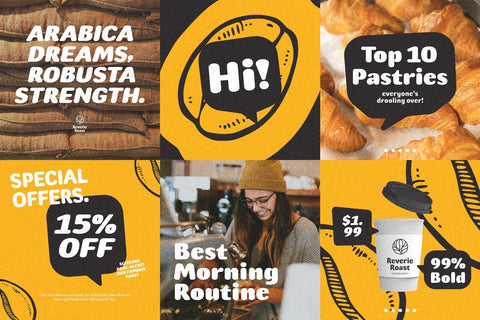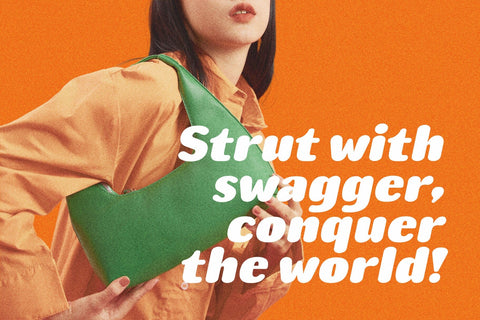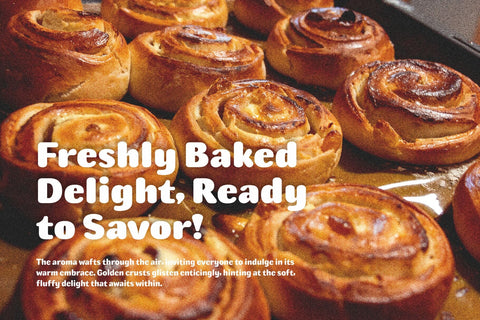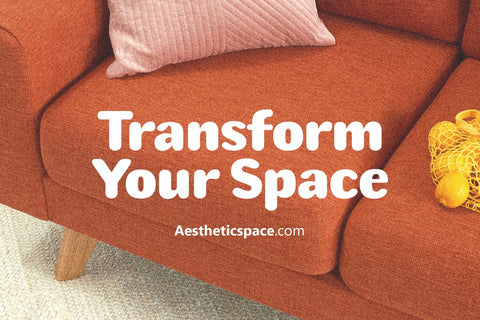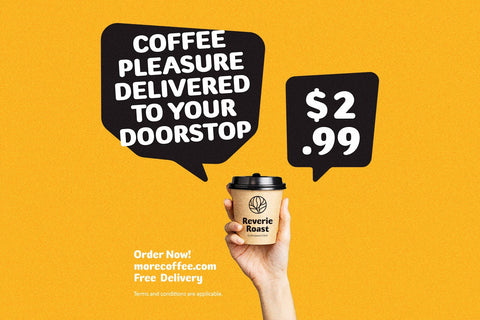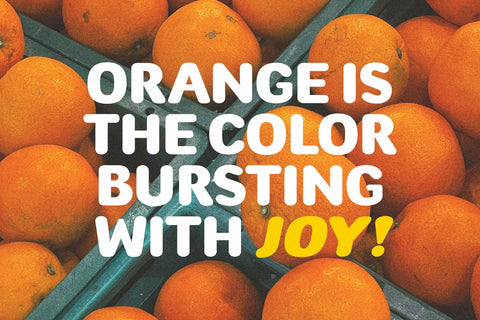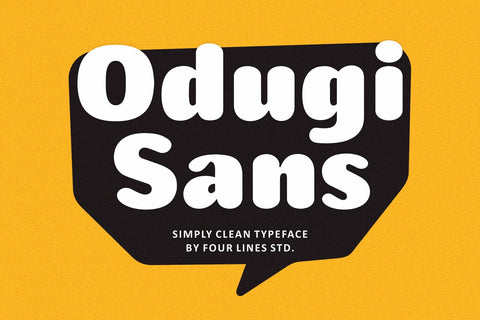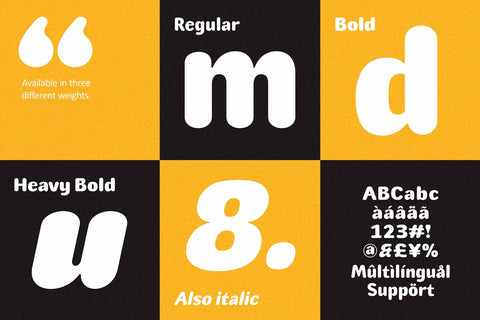
Odugi Sans - A Clean and Versatile Font
Odugi Sans is a clean and modern sans serif font with a versatile character. Designed to be simple yet distinctive, it works well across a variety of design needs — from branding and packaging to editorial layouts and digital content.
Available in three weights (Regular, Bold, heavy) and matching Italics, Odugi Sans offers flexibility and clarity, making it a solid choice for both display and body text. Its straightforward shapes and balanced proportions make it easy to read while maintaining a subtle personality.
- 3 weights: Regular/ Bold/ Heavy
- Italic styles for each weight
- Uppercase and lowercase
- Multilingual support